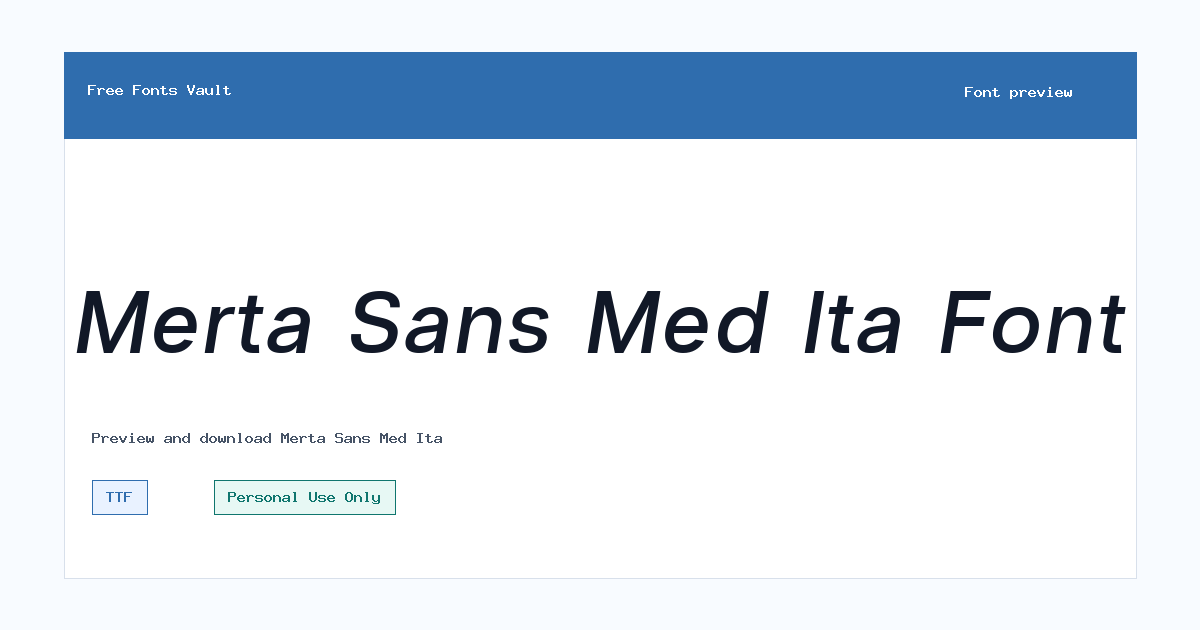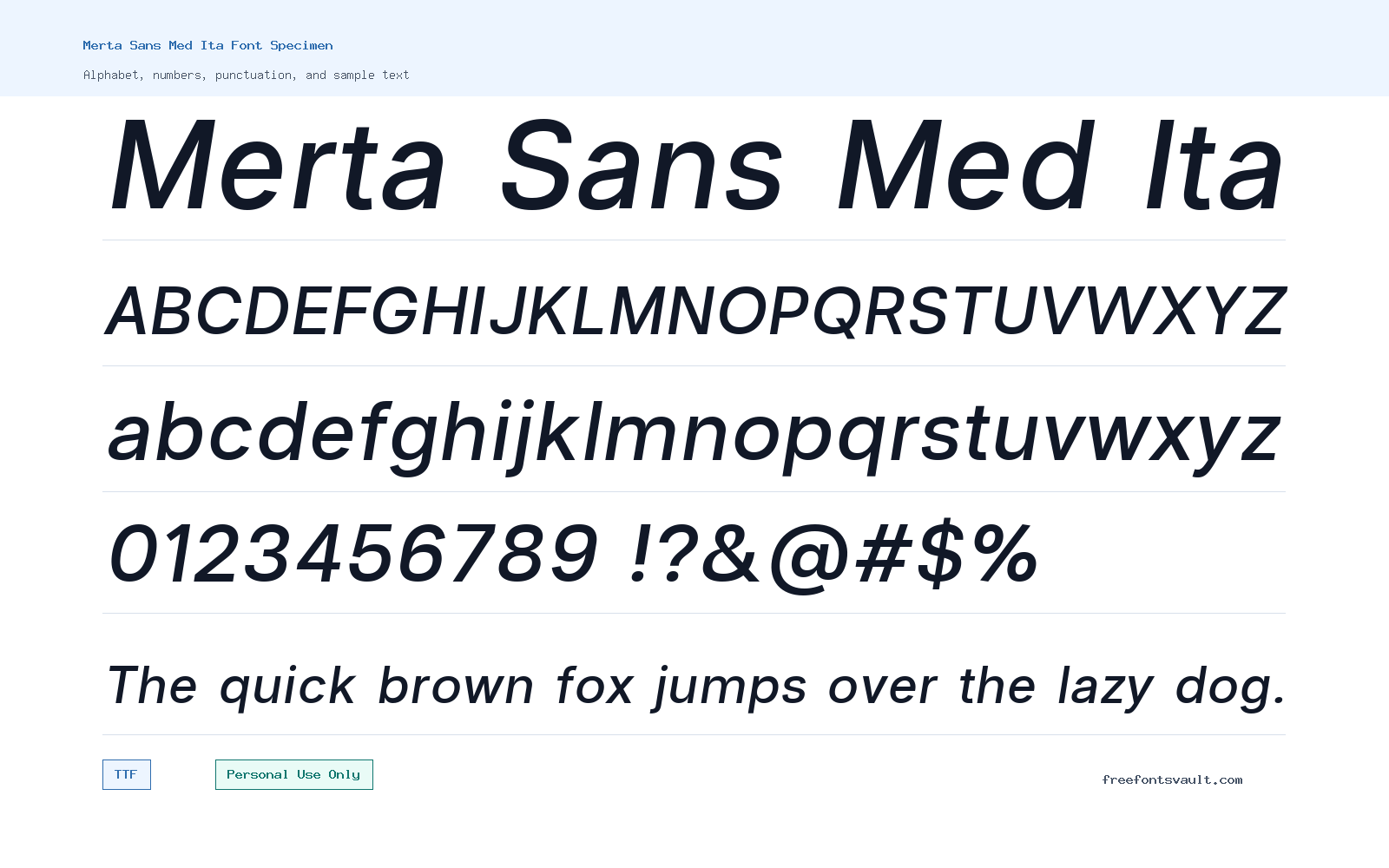
Merta Sans Med Ita
Merta Sans Med Ita Font
• Designer Diki Pradipta Tri Atmojo
• Foundry Lettertype Studio Co.
Merta Sans Med Ita is a medium-weight italic sans serif font with a slanted, modern look that works well when you want text to feel active without becoming overly decorative.
About Merta Sans Med Ita
Merta Sans Med Ita is part of the Merta Sans Serif Font Family naming, and this specific file is a Medium Italic TrueType font. The style combines a 500 weight with an italic angle, giving it more presence than a light italic while still keeping the clean structure of a sans serif. That makes it useful for short headings, callouts, captions, display lines, and brand mockups where upright text feels too static. Because the design is italic, it naturally suggests motion, emphasis, or a softer editorial tone, so it can be a good choice for secondary titles, quote lines, magazine-style layouts, and social graphics.
For designers, the best way to test Merta Sans Med Ita is with short and medium-length text rather than long paragraphs. Try it in the preview tool with product names, poster titles, section labels, website hero text, and logo drafts. The medium weight should help the letters hold up at display sizes, while the italic form can add contrast beside a regular upright sans serif. If you are building a logo concept, use it as an early sketching font and check spacing carefully, especially around angled letters. For posters and web mockups, it can work as an accent face paired with a neutral sans serif or a simple serif used for body text. Avoid relying on it for dense reading blocks unless your layout has generous size, line height, and contrast.
• Medium 500 weight with an italic sans serif style for clear emphasis in short text.
• Useful as an accent style beside upright sans serif text in mockups, posters, and branding drafts.
• Best suited to short headings, captions, quotes, labels, and display text rather than long body copy.
• Logo drafts and brand concept exploration where an italic sans serif accent is useful.
• Poster titles, event graphics, and social media layouts that need clean slanted text.
• Website hero mockups, section headings, and editorial callouts.
• Pairing tests with neutral sans serif body fonts or simple serif text faces.
Merta Sans Med Ita is credited to designer Diki Pradipta Tri Atmojo and foundry Lettertype Studio Co.
Use this font where the italic angle adds emphasis: short titles, pull quotes, logo sketches, poster text, and web design mockups. Pair it with a calmer upright font for body copy so the layout stays readable. Before final use, test uppercase and lowercase spacing, punctuation, numerals, and any words that matter most in your design.
What kind of font is Merta Sans Med Ita?
What is Merta Sans Med Ita best used for?
It is best for short pieces of text such as headings, poster lines, logo drafts, captions, quotes, and web mockup accents. It is less ideal for long reading sections unless tested carefully at a comfortable size.
How should I pair Merta Sans Med Ita?
Pair it with a neutral upright sans serif for clean layouts, or with a simple serif for editorial contrast. Since the font is italic, it usually works better as the accent font rather than the main body font.